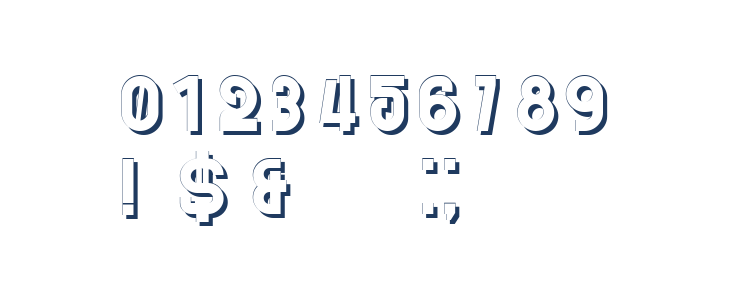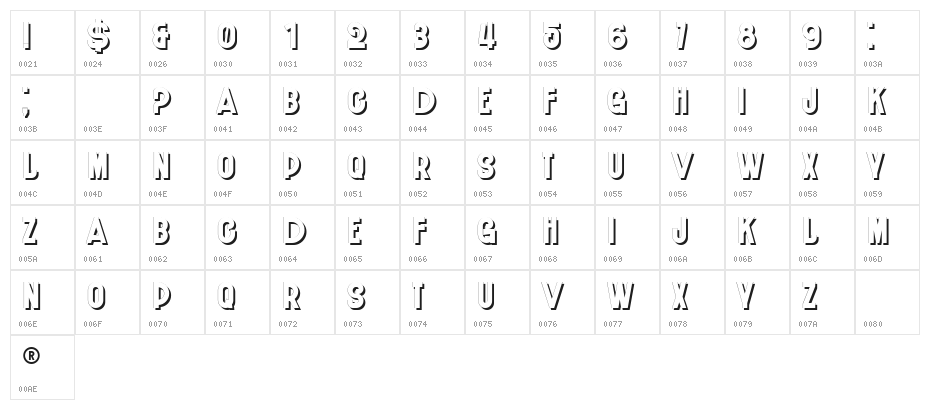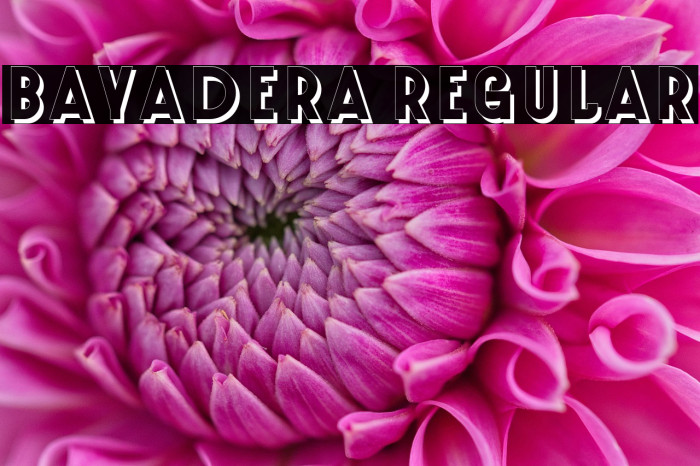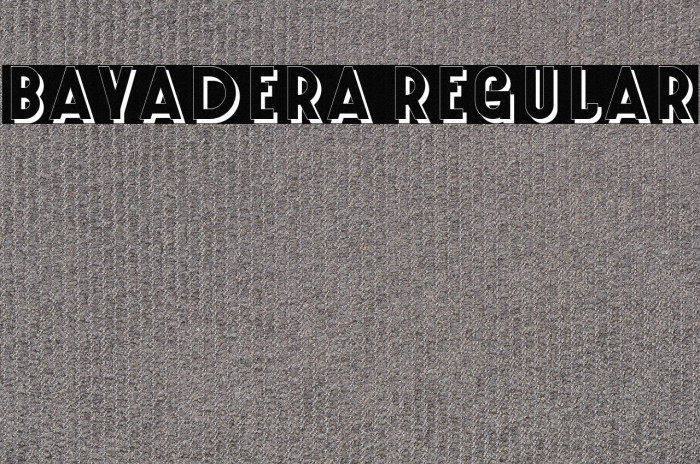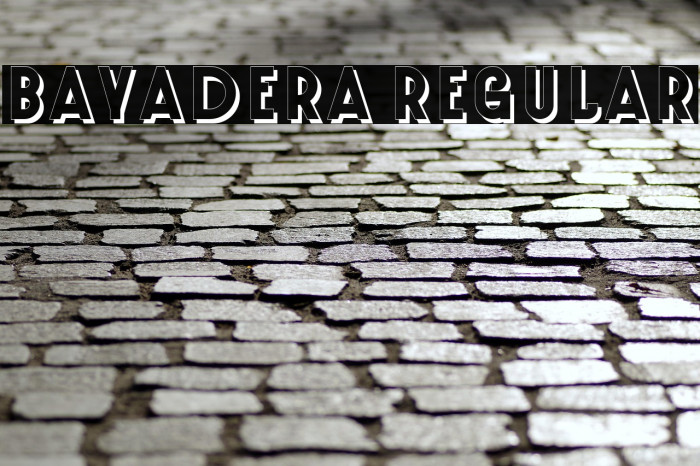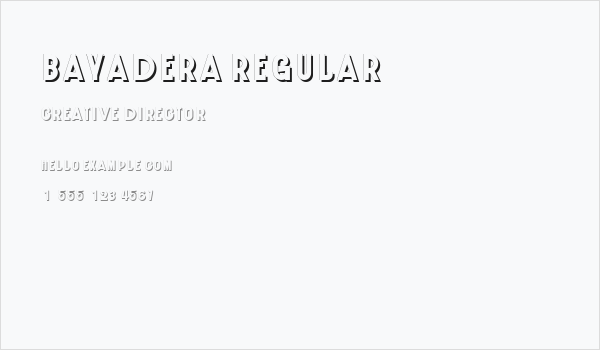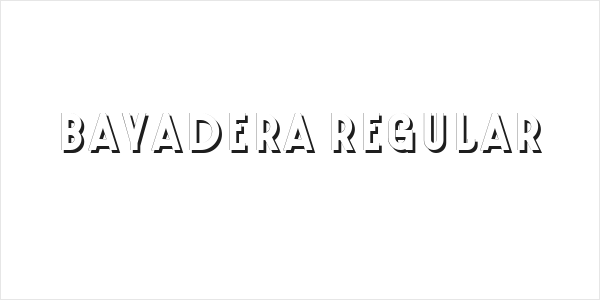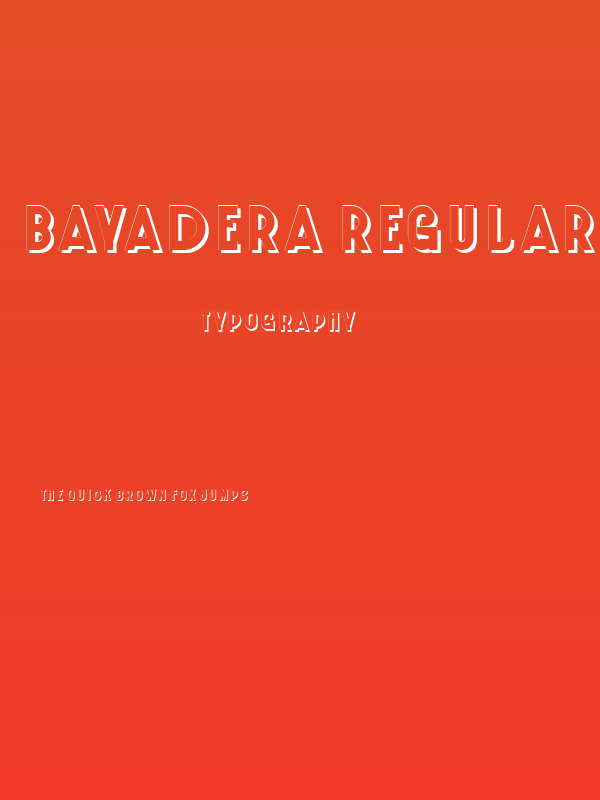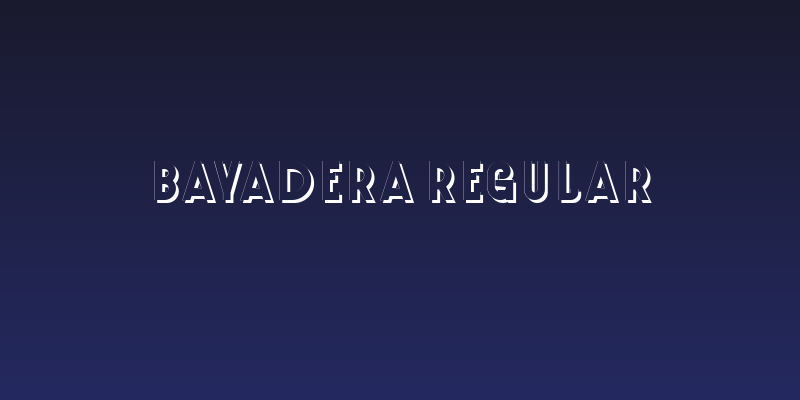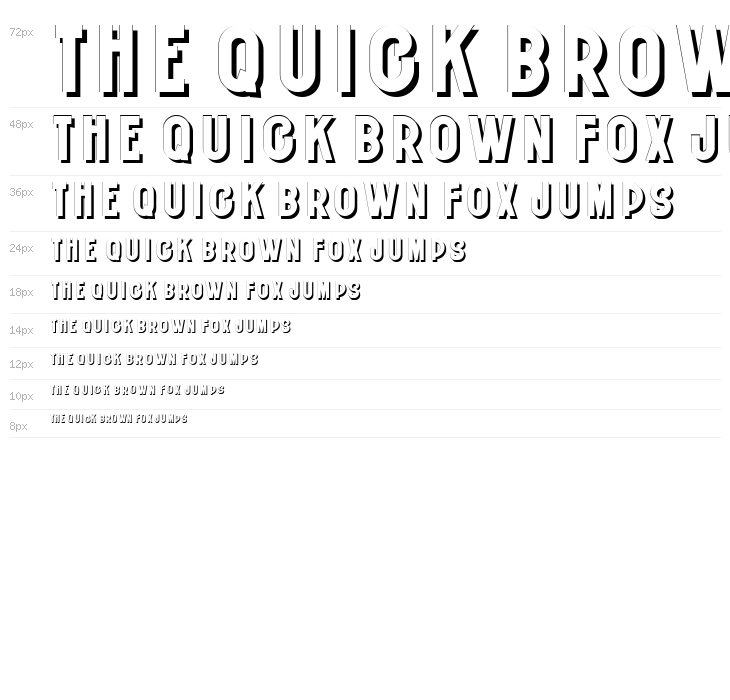
Bayadera Regular Font
Bayadera Regular Description
This font features a bold, three-dimensional appearance with a shadow effect that gives it a striking and impactful look. The characters are uppercase and have a strong geometric structure, making them highly legible and visually appealing. The font's design incorporates clean lines and sharp angles, contributing to its modern and dynamic style. The shadow effect adds depth and dimension, making it suitable for eye-catching designs. The numbers and special characters maintain the same bold and structured style, ensuring consistency across all elements.